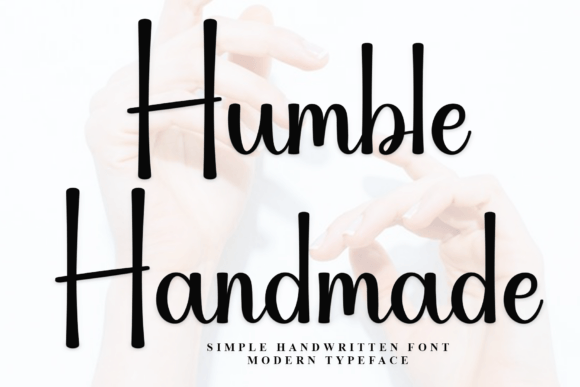
Humble Handmade Font: Elevate Your Designs with Elegance and Class
In the world of typography, few fonts manage to convey the perfect blend of elegance and delicacy. Humble Handmade is one such font that has captured the hearts of designers and crafty enthusiasts alike. This lovely script font is specifically designed to add a refreshing and beautiful touch to your designs, making it an excellent choice for a wide range of creative projects.
The Story Behind Humble Handmade Font
Humble Handmade font is a carefully crafted typeface that embodies the essence of handmade elegance. Its creation was inspired by the need for a font that could bring a touch of sophistication and refinement to various design applications. The font’s design is characterized by its delicate strokes, flowing connections, and subtle variations in line width, which give it a distinctly handmade feel.
Key Features of Humble Handmade Font
- Elegant Script Style: Humble Handmade boasts a beautiful script style that exudes elegance and class, making it perfect for designs that require a touch of sophistication.
- Delicate Strokes: The font features delicate strokes that add to its handmade charm, creating a sense of warmth and personality.
- Flowing Connections: The connections between letters are smooth and flowing, creating a sense of continuity and harmony.
- Subtle Variations: The font’s design includes subtle variations in line width, giving it a distinctly handmade feel that sets it apart from other script fonts.
Uses of Humble Handmade Font
Humble Handmade font is an incredibly versatile typeface that can be used in a wide range of design applications. Here are some of the most popular uses of this beautiful font:
Design Applications
- Wedding Invitations: The font’s elegant and delicate style makes it an excellent choice for wedding invitations, adding a touch of sophistication and romance to your designs.
- Branding and Packaging: Humble Handmade font is perfect for branding and packaging designs that require a touch of elegance and refinement.
- Stationery and Greeting Cards: The font’s handmade charm makes it an excellent choice for stationery and greeting cards, adding a personal touch to your designs.
- Digital and Print Media: Humble Handmade font can be used in a variety of digital and print media, including magazines, brochures, and social media graphics.
Benefits of Using Humble Handmade Font
Using Humble Handmade font in your designs offers several benefits, including:
Why Choose Humble Handmade Font?
- Unique and Distinctive: The font’s handmade charm and elegant style make it a unique and distinctive typeface that sets your designs apart.
- Versatile: Humble Handmade font is incredibly versatile, making it suitable for a wide range of design applications.
- Easy to Read: The font’s clear and flowing design makes it easy to read, even at small sizes.
- High-Quality Design: The font is designed to high standards, ensuring that your designs look professional and polished.
Tips for Using Humble Handmade Font
To get the most out of Humble Handmade font, here are some tips to keep in mind:
Best Practices
- Use it Sparingly: Use Humble Handmade font sparingly to add emphasis and create visual interest in your designs.
- Pair it with Other Fonts: Pair the font with other fonts to create a unique and visually appealing combination.
- Experiment with Colors: Experiment with different colors and textures to add depth and interest to your designs.
- Pay Attention to Kerning: Pay attention to kerning and tracking to ensure that your text looks professional and polished.
Humble Handmade font is a beautiful and elegant script font that can add a touch of sophistication and refinement to your designs. Its delicate strokes, flowing connections, and subtle variations in line width make it a unique and distinctive typeface that’s perfect for a wide range of creative projects. By following the tips and best practices outlined in this article, you can get the most out of Humble Handmade font and create stunning designs that showcase your creativity and style.